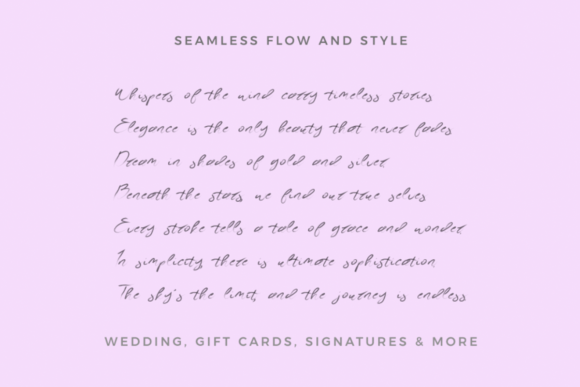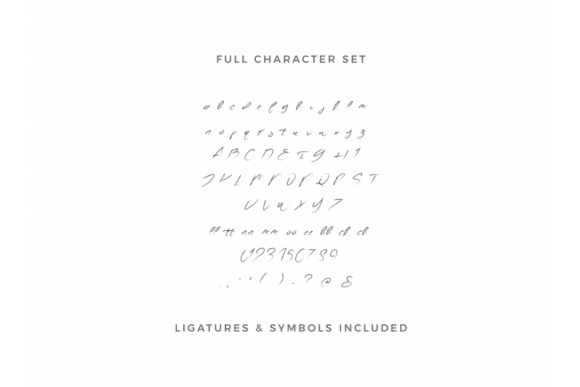
Discover the Charm of Forrester Font: Elevate Your Designs with this Unique Typography
Welcome to the enchanting realm of typography, where creativity knows no bounds! In this vast and vibrant landscape, one font stands out for its distinctive charm and character: Forrester. This captivating script font is not just a collection of letters; it’s an artistic expression, handcrafted with love and care. Forrester is more than just a font; it’s a statement piece that can transform your designs and elevate your creative projects to new heights.
The Story Behind Forrester: A Labor of Love
Forrester is a handwritten and hand-lettered font, born out of a passion for typography and design. Its creator poured their heart and soul into crafting each letter, ensuring that Forrester exudes an intimate charm that’s hard to find in digital fonts. This labor of love is evident in every curve, every loop, and every stroke, making Forrester a truly unique addition to any designer’s toolkit.
What Makes Forrester So Special?
So, what sets Forrester apart from other fonts? Here are a few reasons why this font is a must-have for designers and crafters:
- Handwritten and Hand-Lettered: Forrester’s organic and personal feel makes it perfect for projects that require a touch of warmth and humanity.
- Unique Character: Each letter in Forrester has its own distinct personality, ensuring that your designs stand out from the crowd.
- Versatile: Forrester is suitable for a wide range of applications, from branding and advertising to packaging and digital media.
- Exquisite Aesthetics: Forrester’s beautiful script font is sure to add a touch of elegance and sophistication to any design.
Applications of Forrester Font
Forrester’s versatility makes it an excellent choice for various design projects. Here are some ideas to get you started:
- Branding and Logo Design: Use Forrester to create a unique and memorable brand identity that stands out from the competition.
- Wedding and Event Stationery: Add a touch of elegance and romance to your wedding invitations, save-the-date cards, and other event materials.
- Packaging Design: Forrester is perfect for creating eye-catching packaging that reflects your brand’s personality.
- Digital Media: Use Forrester in your social media graphics, blog posts, and website headers to add a personal touch.
Tips for Using Forrester Font Effectively
To get the most out of Forrester, here are some tips to keep in mind:
- Pair with Neutral Fonts: Combine Forrester with clean and simple fonts to create a striking contrast.
- Experiment with Colors: Forrester looks great in a variety of colors, so don’t be afraid to try out different hues and shades.
- Play with Size and Scale: Use Forrester in different sizes and scales to create visual interest and hierarchy.
In conclusion, Forrester font is a true gem in the world of typography. Its unique character, exquisite aesthetics, and versatility make it an excellent addition to any designer’s toolkit. Whether you’re a professional designer or a crafty DIY enthusiast, Forrester is sure to inspire your creativity and elevate your designs. So why settle for ordinary fonts when you can have a piece of artistry? Dive into the beautiful world of typography with Forrester and discover a new level of design excellence.
It’s more than words. It’s Forrester.